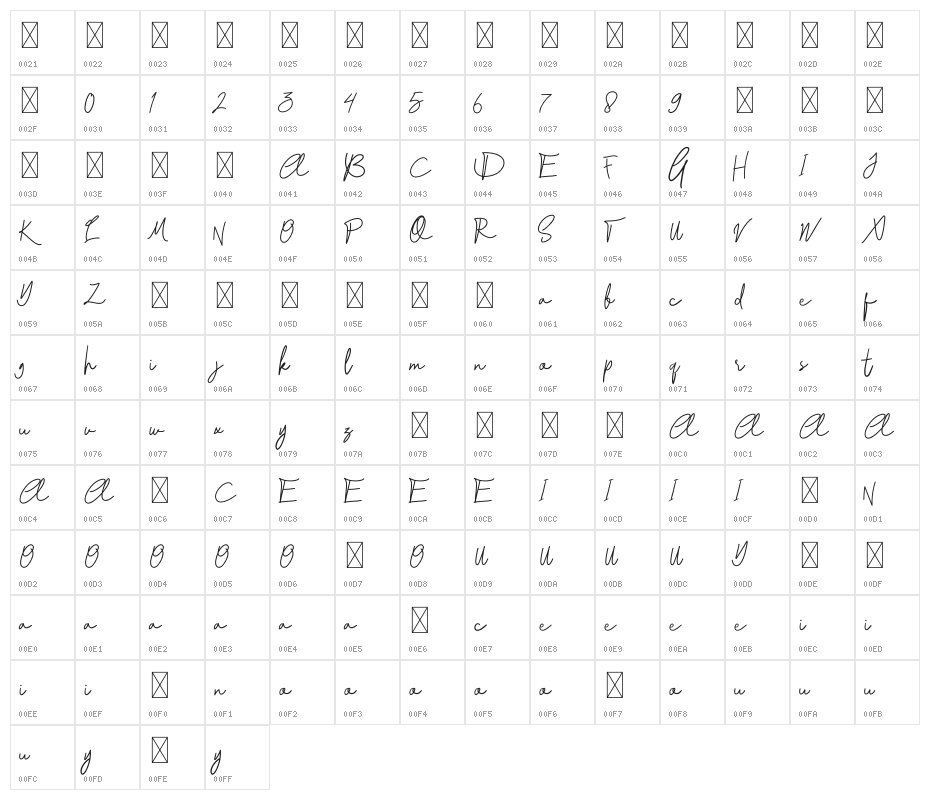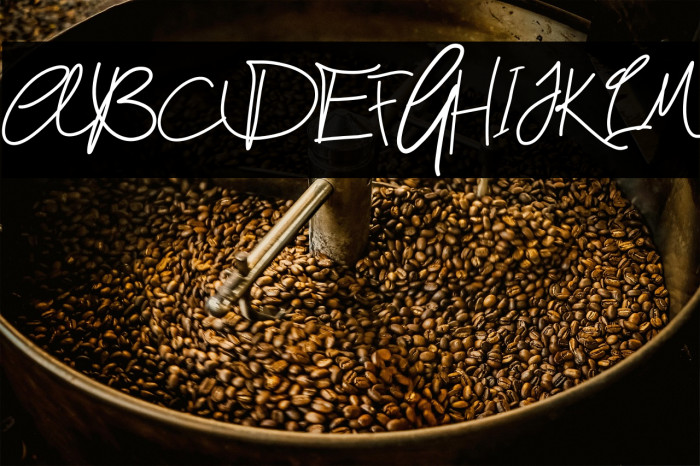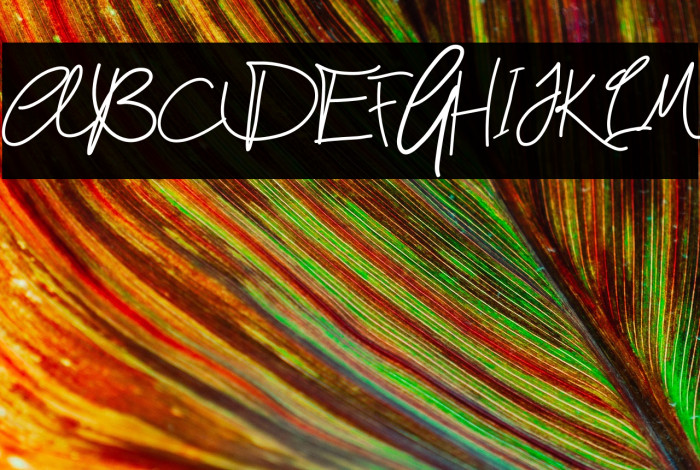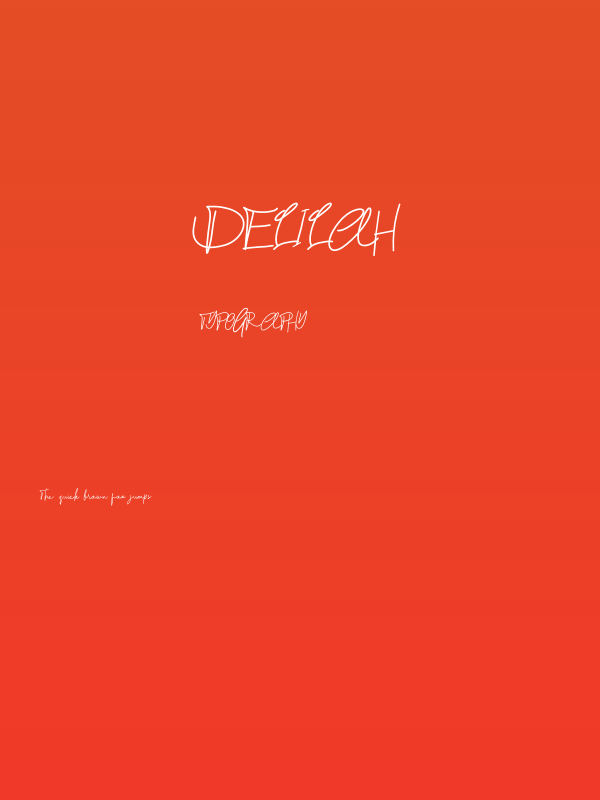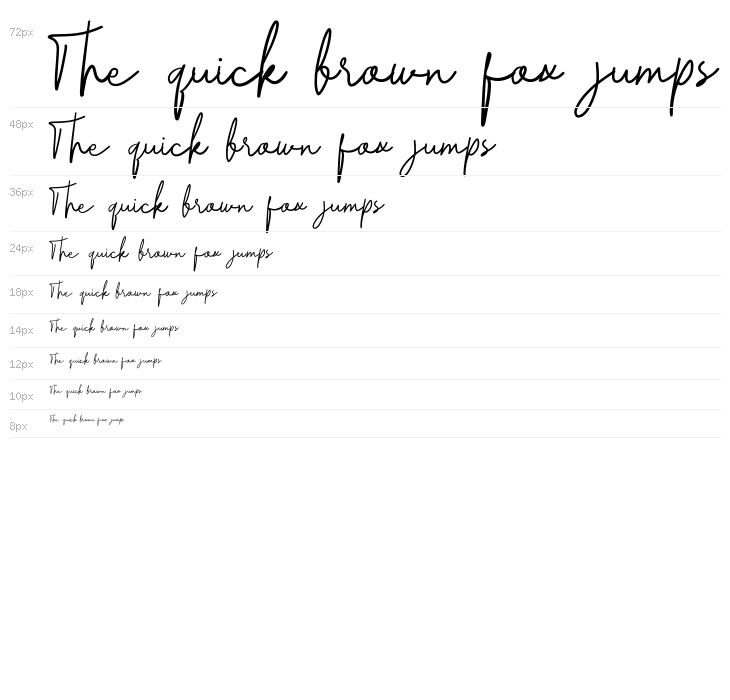
Delilah Font
Delilah Description
This font exudes a lively and dynamic character with its flowing, cursive style. The uppercase letters are bold and sweeping, with a sense of movement that suggests a handwritten touch. The lowercase letters maintain this fluidity, offering a harmonious blend of elegance and readability. Numbers are crafted with the same attention to detail, ensuring consistency across all characters. The font's overall appearance is both artistic and approachable, making it suitable for a variety of creative applications.
| Proposed Projects | Ideal for wedding invitations, greeting cards, personal branding, and artistic projects that require a personal and elegant touch. |